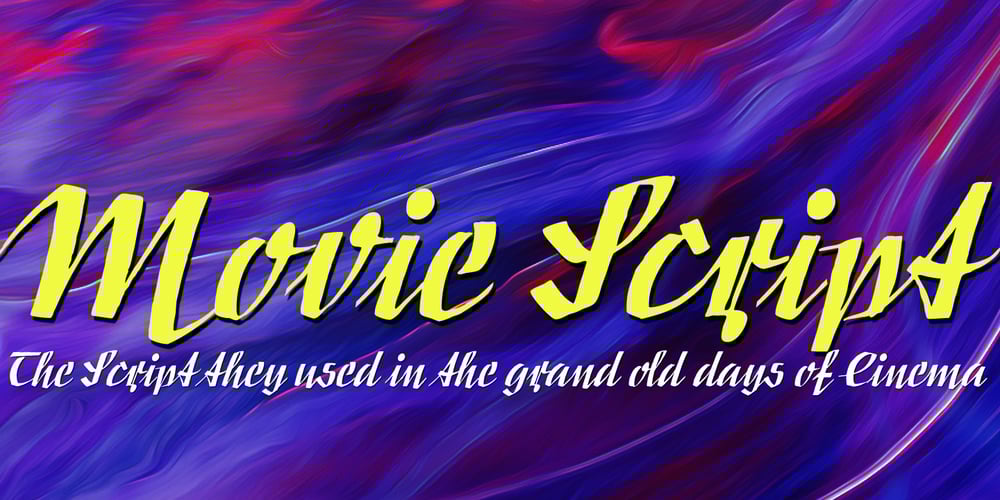
Movie Script Font Family was designed by Gert Wiescher and published by Wiescher Design. Movie Script contains 1 styles and family package options. Movie Script is the script that was used in German movie-brochures. Those were small four page leaflets with a lot of sepia-colored pictures about the movie one was about to see. Today those things are collectors items. The script was also used on those hand-painted posters above the cinema entrance. I cleaned up the old script and made it just a little bit more readable, but overall I left it as it was. Of course I added the necessary glyphs for today’s world, like Euro and so on. When I was a kid, my grandfather gave me 1 German Mark and I could go to the movies matinee, that was around 10:30 in the morning, the entrance cost something like 60 Pfennig and the rest was for peanuts and a drink. Still today I love my grandfather for that, movies introduced the world to me (no TV then). Your grandfather-loving designer Gert Wiescher